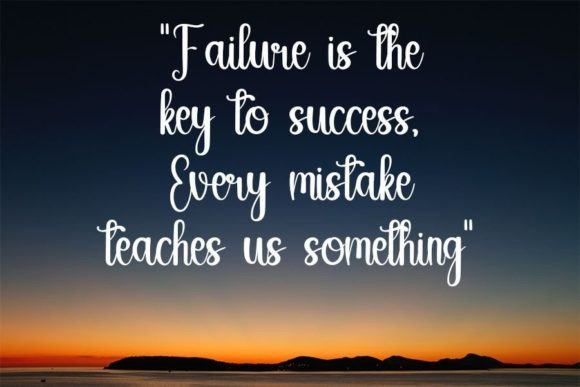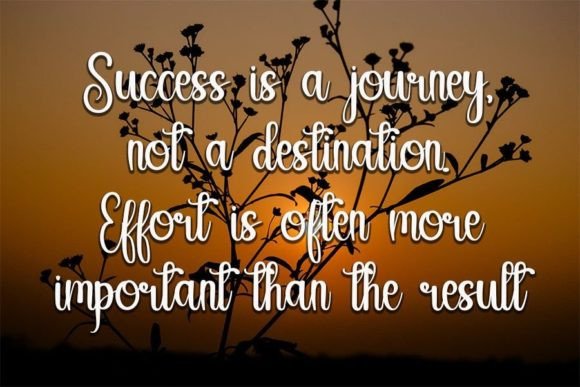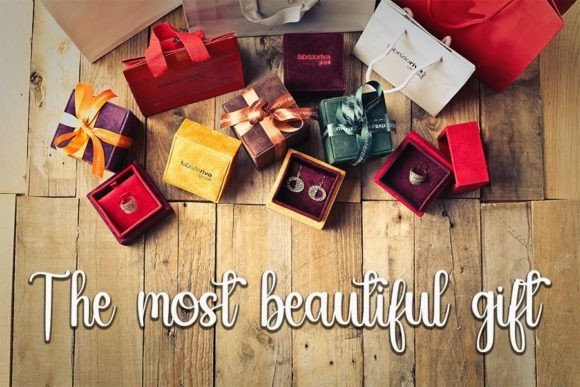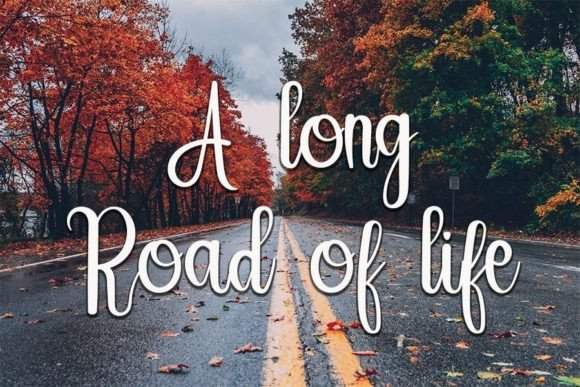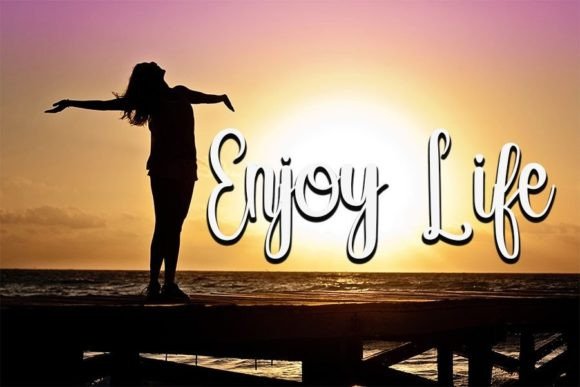
Bigbundle Font
About Bigbundle Font
BigBundle sounds like a slim and delicate handwritten font, radiating a dainty and joyful vibe. Its description suggests that it’s well-suited for romantic and personalized designs, making it an ideal choice for applications such as wedding invitations and cards.
The fact that BigBundle is recommended for adding a romantic and personalized touch to creative projects implies that it brings a unique and intimate quality to designs. Handwritten fonts with these characteristics often convey a sense of warmth and individuality, making them perfect for projects that require a personal and heartfelt touch.
Consider incorporating BigBundle into your design projects to explore its slim and delicate qualities fully. Whether you’re working on wedding stationery, romantic cards, or any other creative endeavor that demands a touch of joy and intimacy, BigBundle seems poised to make your designs outstanding.
Fonts with a delicate and handwritten style, like BigBundle, can contribute to creating a visually appealing and emotionally resonant atmosphere in design. Enjoy utilizing BigBundle in your creative projects, and may it add a touch of romance and personality to your typography, making your designs truly stand out!